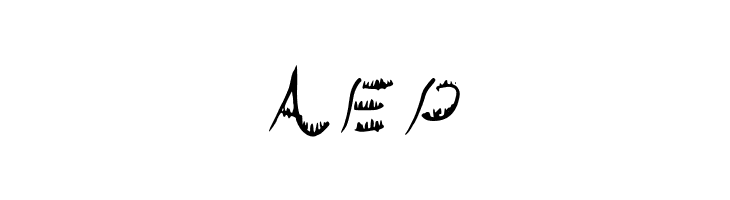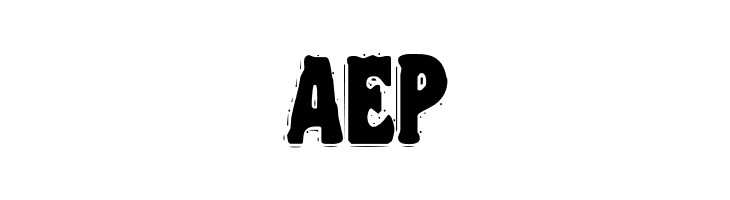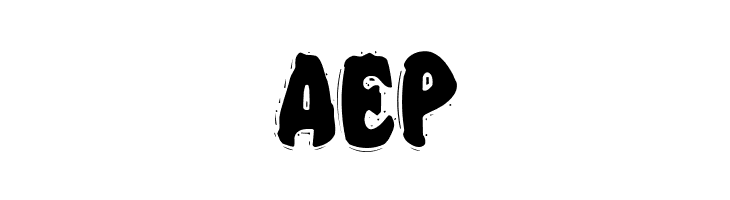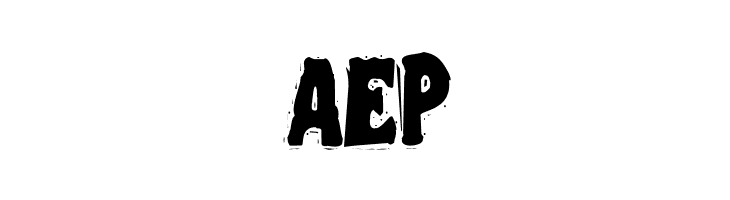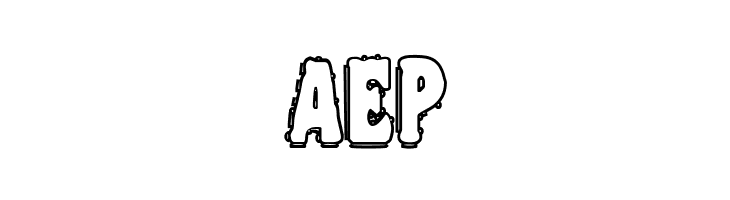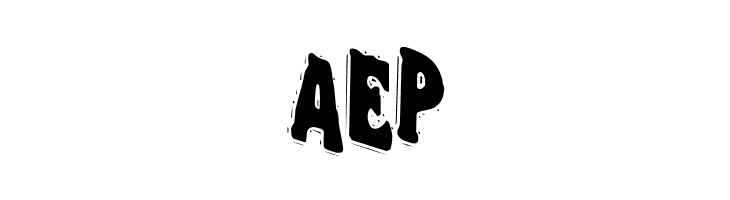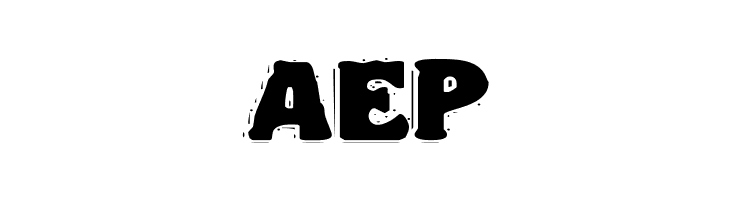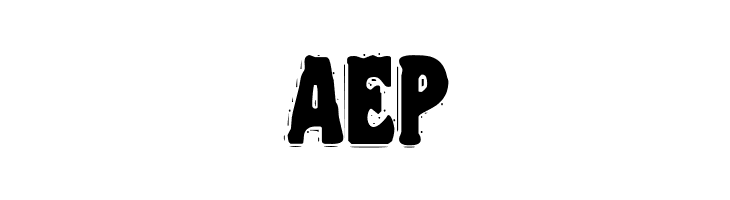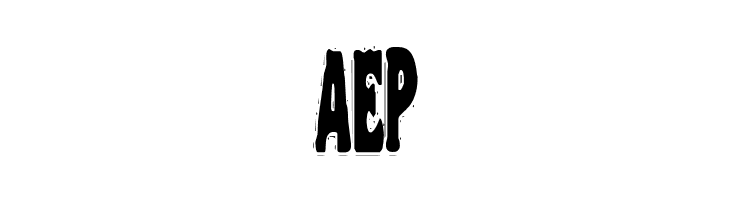
A playful, dripping font with a dynamic, hand-drawn style.
A bold, jagged font with a spooky, horror-themed design.
A bold, dripping font with a spooky, playful style.
A bold, playful font with a dripping, liquid-like effect, perfect for spooky themes.
A bold, playful font with a spooky, dripping effect ideal for horror themes.
A bold, dripping font perfect for spooky or playful designs.
A bold, distressed font with a spooky, hand-drawn style.
A bold, dripping font with a playful, eerie style perfect for spooky themes.
A bold, drippy font with a spooky, playful style.
A decorative, distressed font with an eerie, horror-themed style.